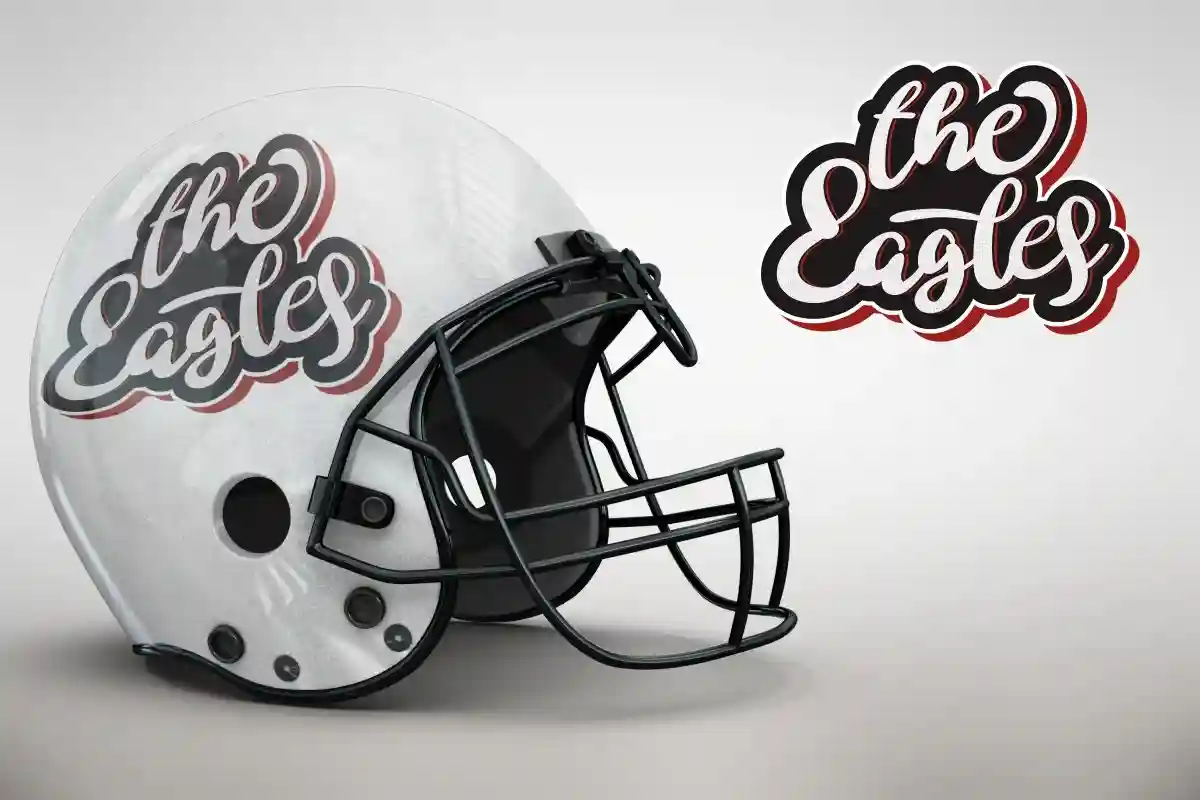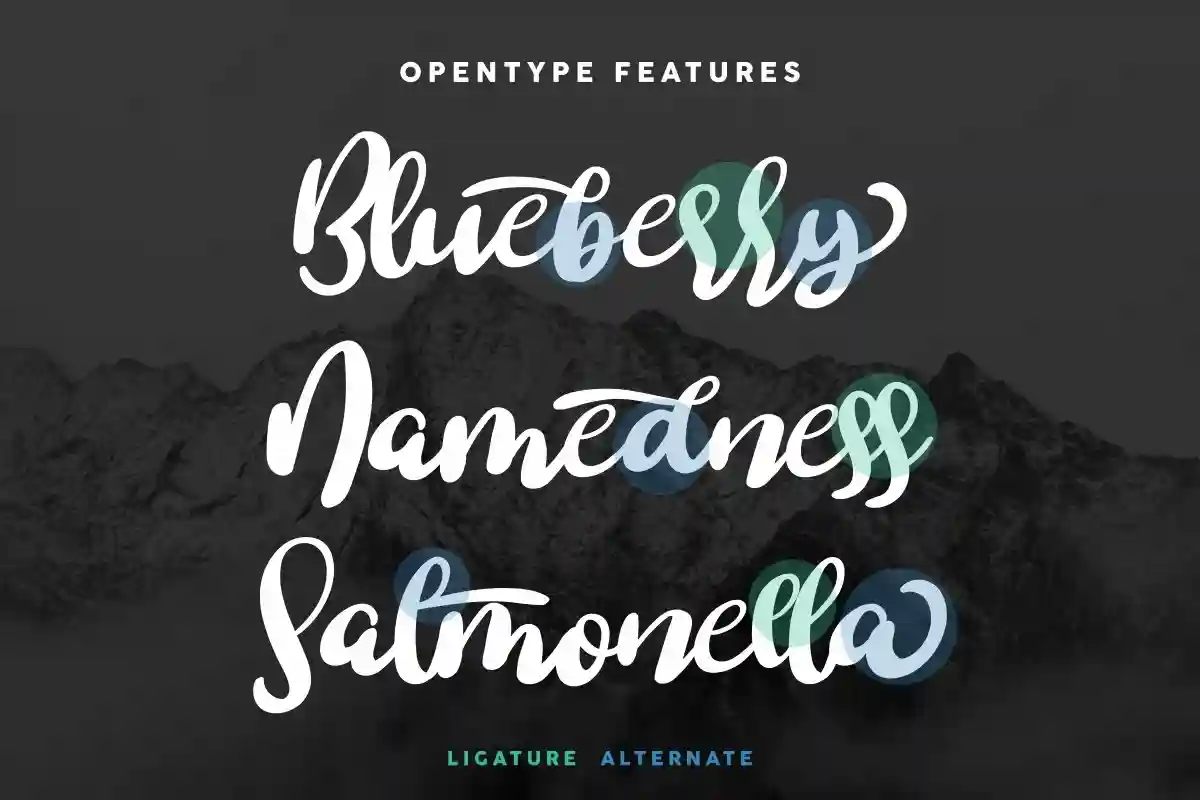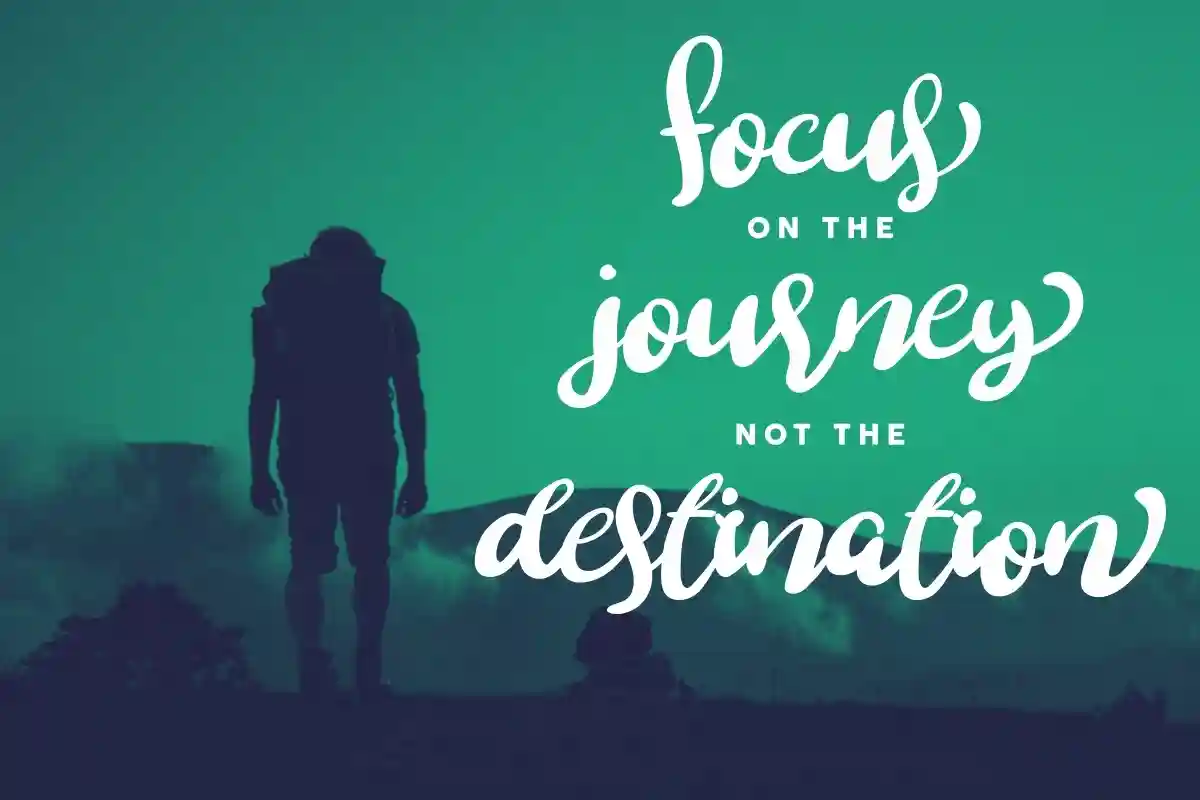
Blushie Font is a bold modern brush font made by NoahType. This font will add a personal handwriting look twist to any design project. This font is crafted carefully in every its single scratch, created to look as close to a natural handwritten script so that it can create the perfect combination on each glyph. When we make this font, we really want to create a touch that is so free-flowing that it gives a natural impression on its use later. For example, if you want letter ‘s’ that has a flow sketch with letter ‘t’, you can find it in ‘st’ ligature glyph (just type in the text form below for trying). This brush font is for anyone who are needing of personal stylish for their designs.
This brush font will be awesome for motor club, sport, music, video, games, apps etc
Blushie Font includes full set of Uppercase and Lowercase Basic Characters, Numerals and Punctuation. Also it contains ligatures and a lot of alternates characters to perfectly make natural writing look that add more beautiful and aesthetic fonts to perfect your extraordinary project. Blushie will be awesome for logotype, invitation, cards, flyer, headline, promotion, social media posts etc